When it comes to designing a website, choosing the right fonts can make a big difference in the overall look and feel of your site. However, as a beginner, it can be challenging to find the right fonts that fit your design vision and budget. The good news is that there are several free websites out there that offer a wide selection of web fonts for you to choose from.
In this blog post, we’ll be sharing 5 free websites that offer high-quality web fonts you can use in your website design. Let’s get started!
1. Font Squirrel - great for branding experts who need complete web font kits
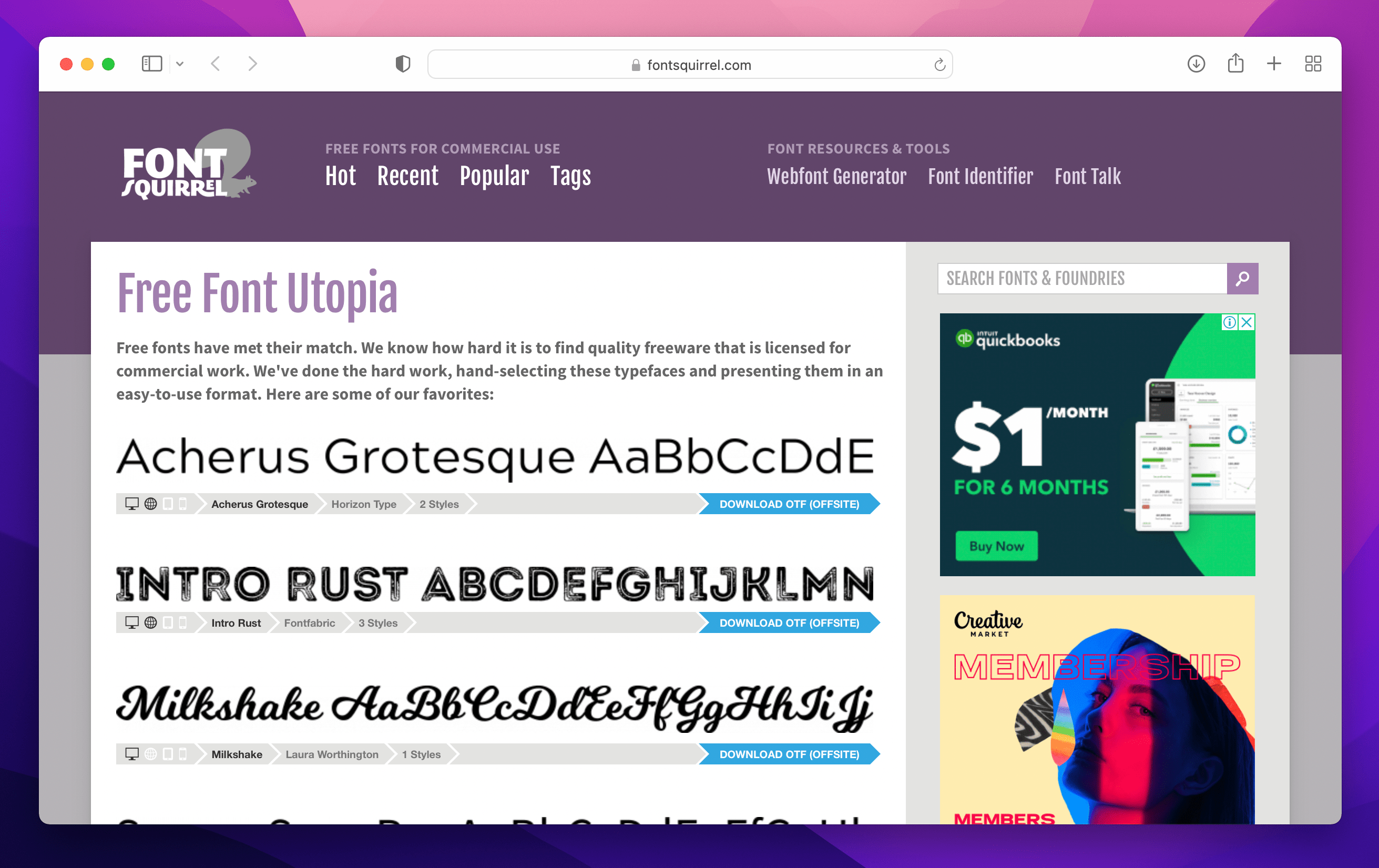
Looking for high-quality, free fonts? Font Squirrel has got you covered! They have a wide variety of fonts that you can use for both personal and commercial projects. The best part? They have a font generator that allows you to upload your own font and generate a web font kit for free!
2. DaFont - easiest, fastest site for free font downloads
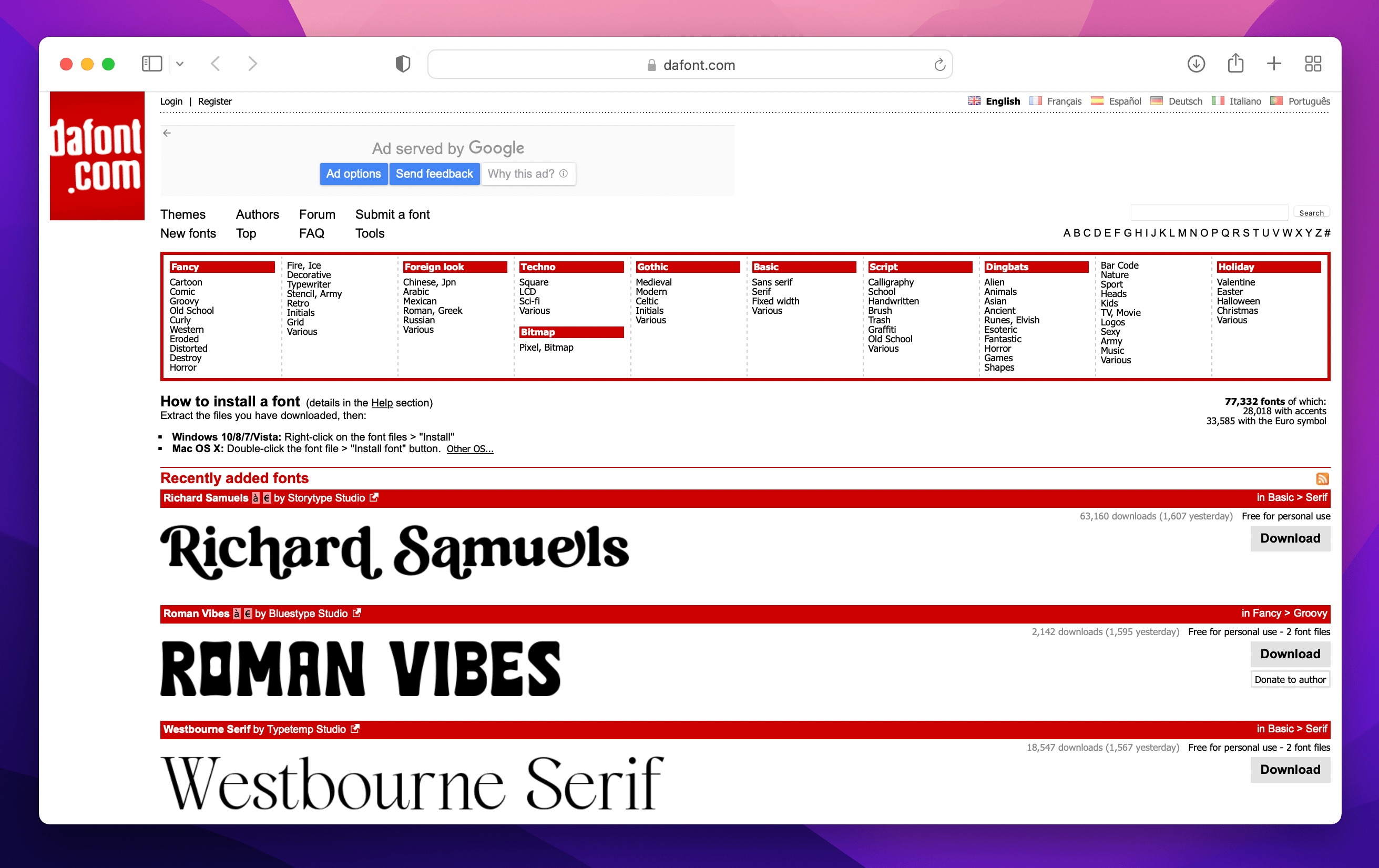
DaFont is a great website for finding unique and creative fonts that you won’t find anywhere else. They have a huge library of free fonts that are easy to download and use on your website. Whether you’re looking for a handwritten script or a bold sans-serif, DaFont has something for everyone.
3. FontSpace - indecisive? opt for this vast font library with endless options
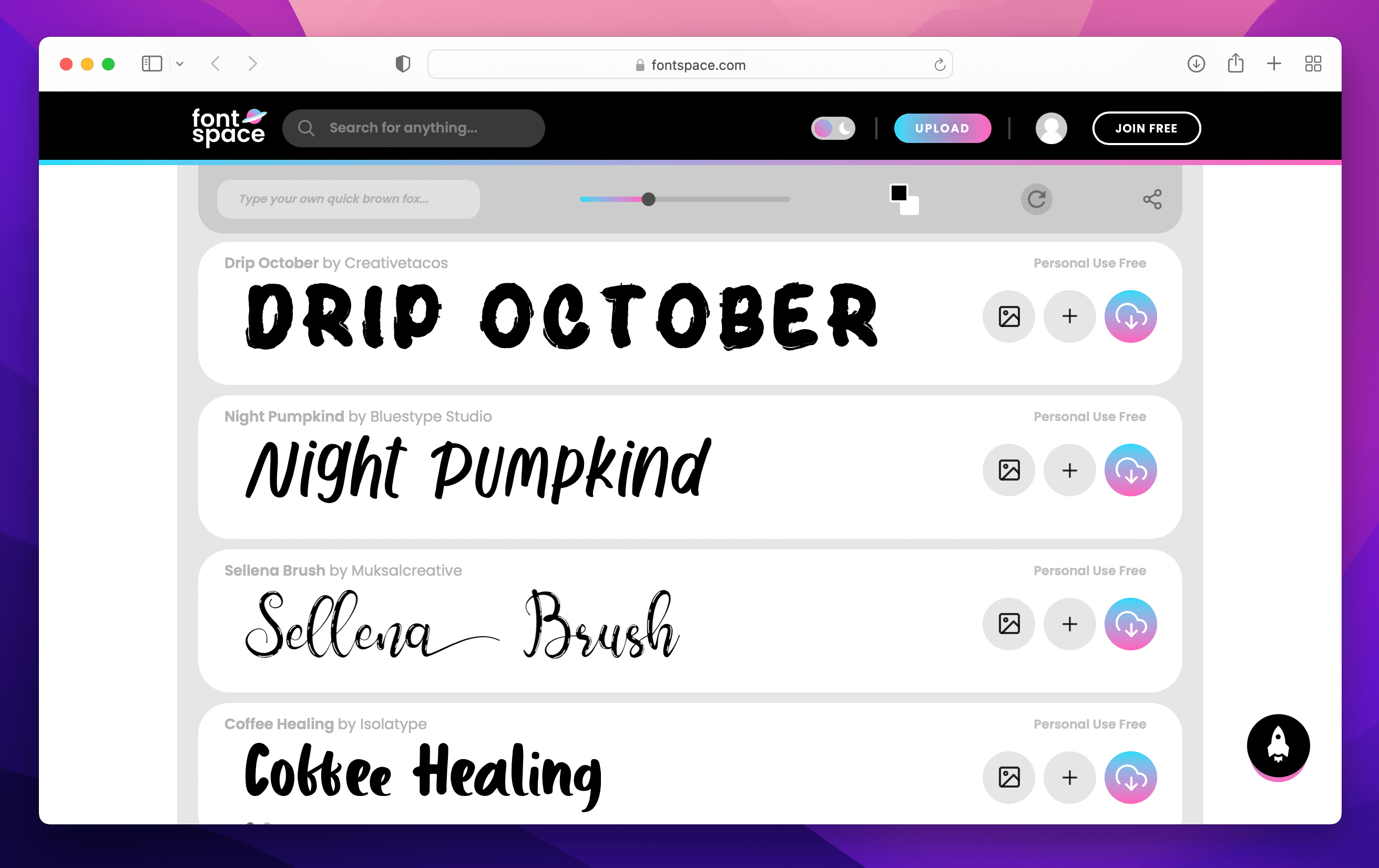
FontSpace is another fantastic resource for free fonts. They have a large collection of fonts that are organized into categories like “serif,” “script,” and “display.” Plus, they have a handy preview feature that allows you to see how the font looks before you download it.
4. Fontfabric - packed with ultra-fresh, modern and stylish fonts
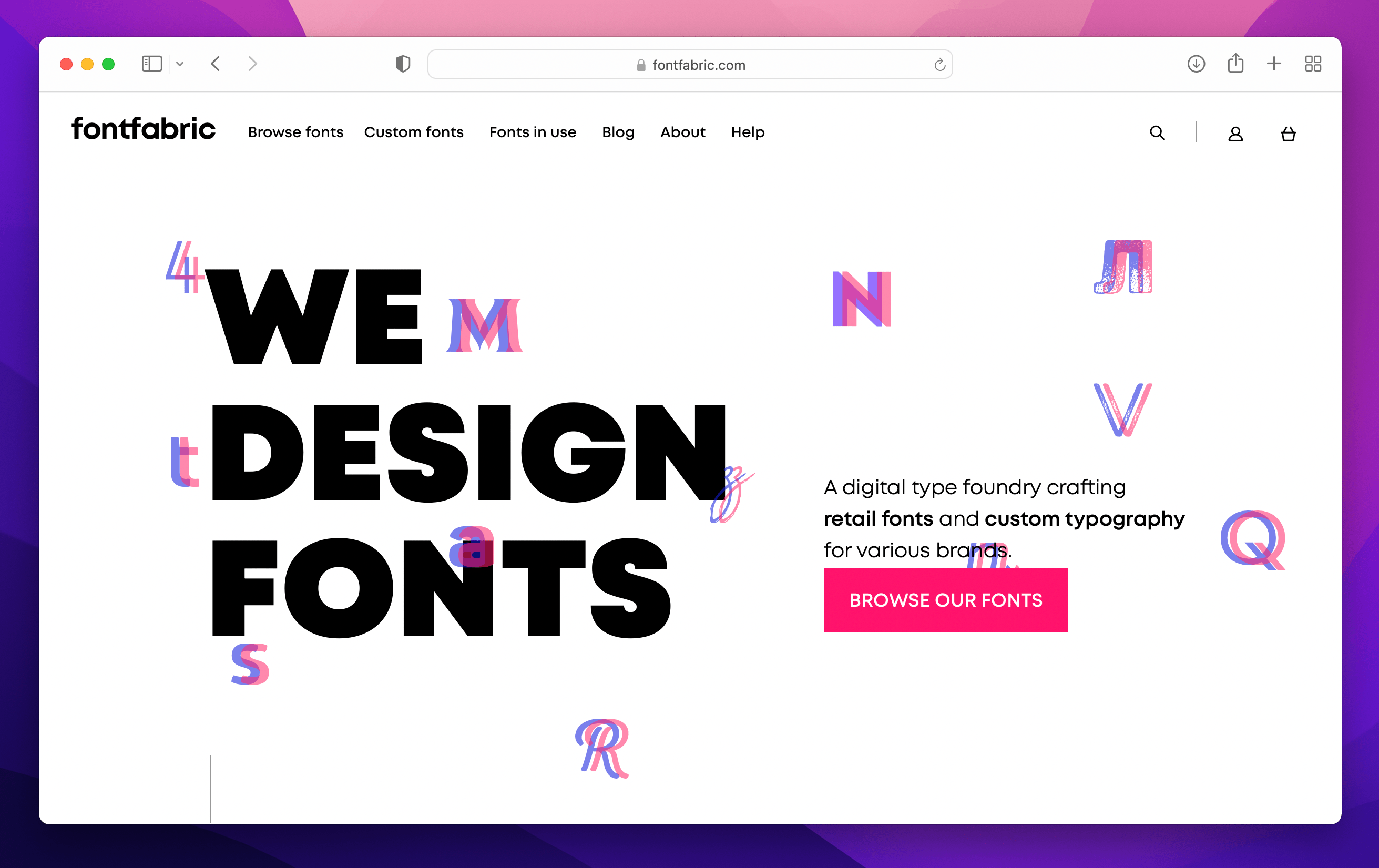
If you’re looking for a website that offers modern and stylish fonts, Fontfabric is the perfect choice. They have a large selection of free fonts that are perfect for web design, branding, and more. Plus, their fonts are available in a variety of different formats, making it easy to find the perfect one for your project.
5. FontSpring - unique fonts you won’t find elsewhere by independent artists
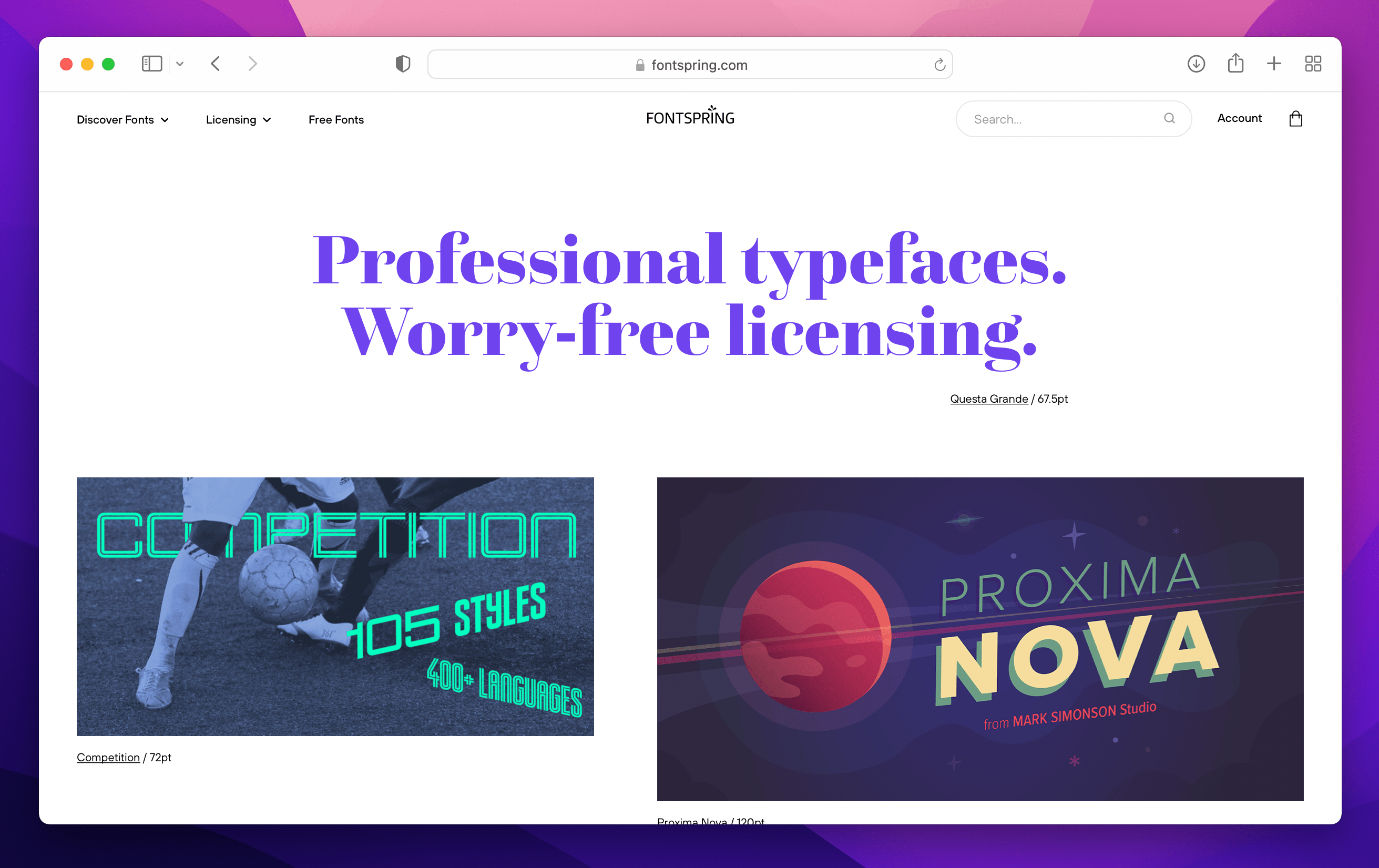
FontSpring is a website that offers a variety of free fonts from independent designers. They have a wide range of fonts to choose from, including everything from elegant scripts to bold display fonts. Plus, they have a handy “test drive” feature that allows you to see how the font looks in different sizes and styles before downloading it.
Bonus! Fontsquirrel Webfont Generator - perfect for the creative DIY designers
In addition to offering a library of fonts, Fontsquirrel also has a free webfont generator tool. You can upload your own font files and generate webfonts that are compatible with all browsers. Pretty cool right? All that doodling finally paid off!
With the right web font, you can create a unique and beautiful website that truly stands out from the crowd.